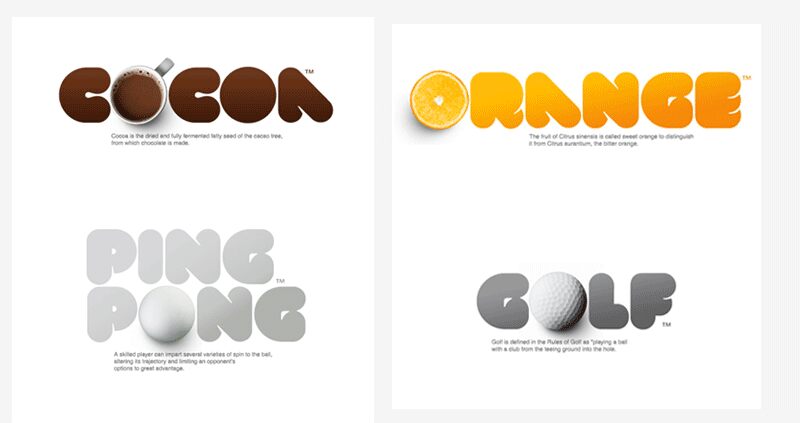
VAL, designed by Fontfabric, is a free groovy display font built from broad, rounded strokes. Its letters merge soft curves with deep diagonal cuts, producing a compact silhouette that feels almost poured into shape. The forms are weighty and smooth.
Music and nightlife themes are a natural match for its rolling shapes and abrupt notches. Album artwork, club posters, and streetwear graphics can use the lettering as both a name and a simple graphic motif. It is especially suited to youth-focused brands drawn to playful, unconventional typography.